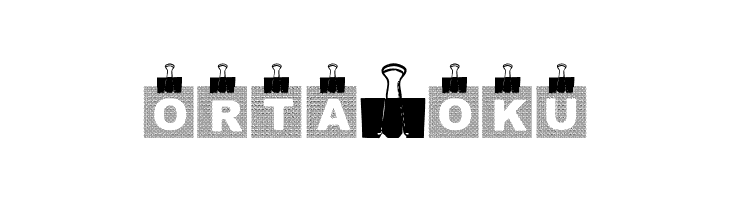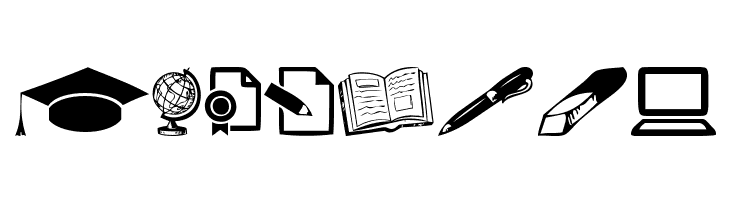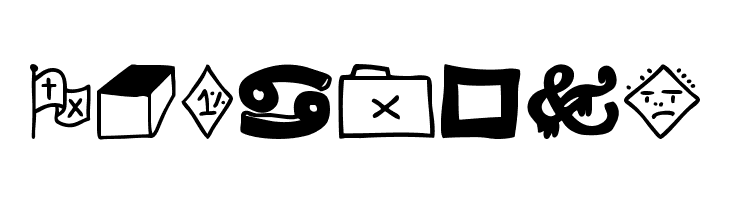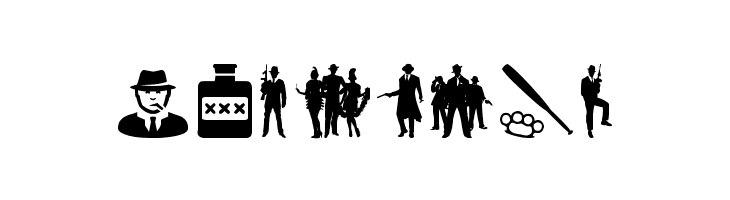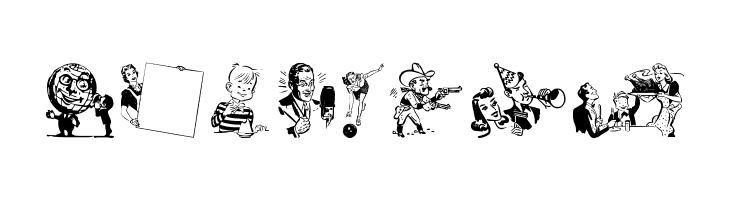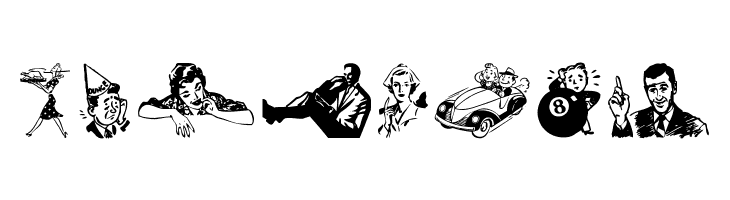
Alphabet formed using binder clips in a creative, artistic style.
Bold, modern school and education-themed icon set.
A decorative symbol font with diverse pictograms and playful illustrations.
Bold pictogram set with a mafia and crime theme.
Retro illustrative dingbat set with vintage comic and advertising motifs.
A decorative pictogram font focused on senior citizens and aging themes.
Bold, playful emoticon and symbol icons with thick lines and high contrast.
Vintage-themed dingbat illustrations in a mid-century comic style.